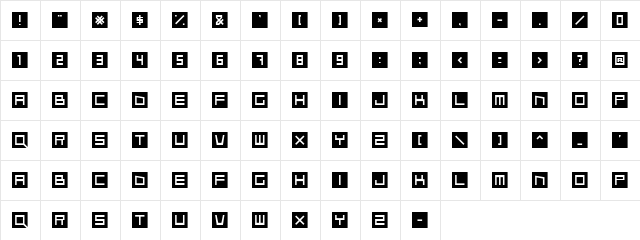
Qubix Regular Font Preview
Qubix Regular
Design Context for Qubix Typeface
Qubix is a composed and adaptable typeface that performs quietly and consistently across a wide range of design contexts.